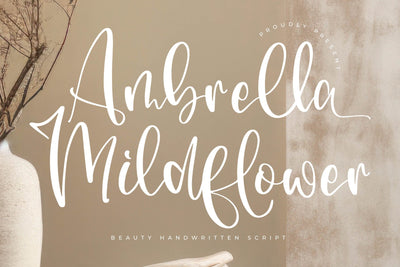
Ambrella Mildflower - Beauty Handwritten Font
Ambrella Mildflower - Beauty Handwritten Font , from Letterena, is a Luxury Script font, suitable for any projects such as: logos, branding projects, homeware designs, product packaging, mugs, quotes, posters, shopping bags, t-shirts, book covers, name card, invitation cards, greeting cards, label, photography, watermark, special events, and all your other luxury and beautiful projects that need a Luxury Script taste.